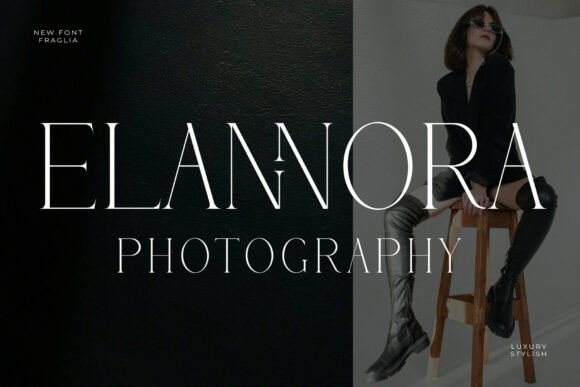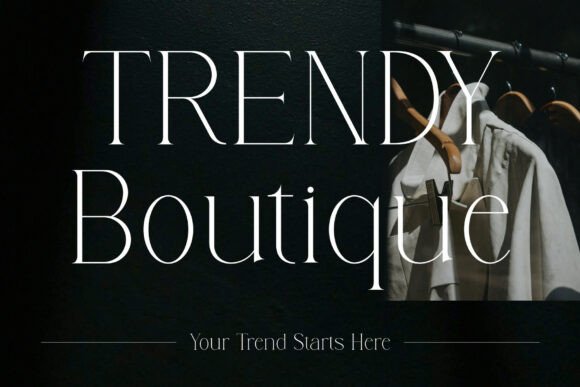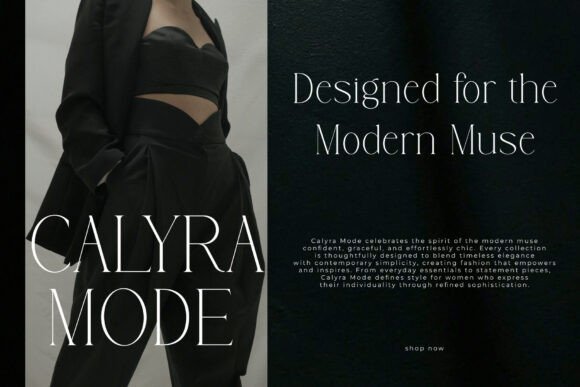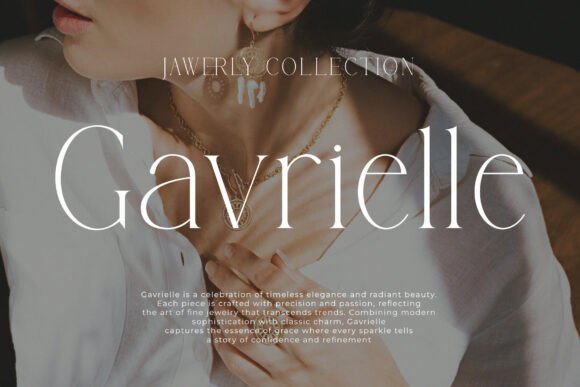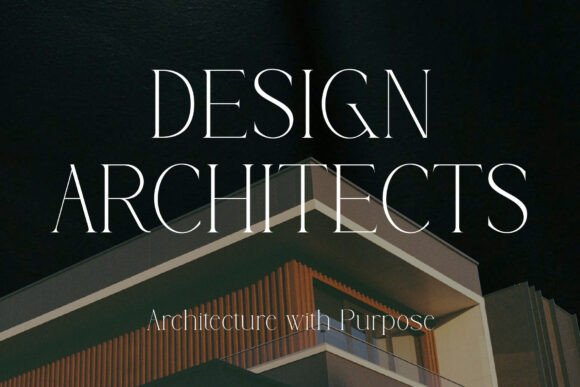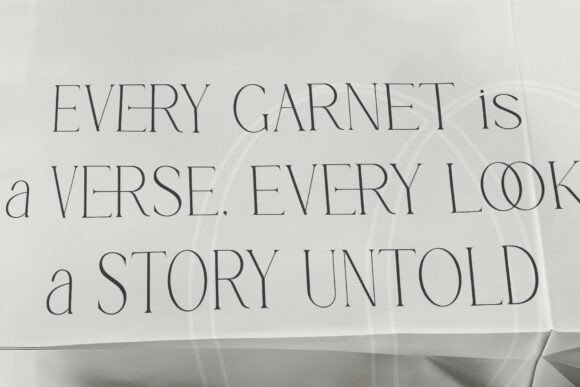
The Elegance of Framlir Font: Elevate Your Designs with Luxury and Sophistication
I’ll never forget the design project that made me fall in love with the Framlir Font. I was working on a luxury fashion brand’s visual identity, and my client specifically requested a font that exuded high-end elegance. After hours of searching, I stumbled upon Framlir, and it was love at first sight. The tall, high-contrast letterforms, the razor-thin hairlines, and the unique ligatures all came together to create a truly regal aesthetic. In this article, I’ll share my experience with Framlir, its features, and how to make the most of this stunning font.
A Personal Review of Framlir Font
- ✅ Elegant and sophisticated design that’s perfect for luxury brands
- ✅ High-contrast letterforms that add visual interest
- ✅ Unique ligatures that set it apart from other serif fonts
- ✅ Works beautifully for both digital and print applications
- ⚠️ May not be suitable for body text due to its elegant but slender design
- ⚠️ Some users may find the font’s stylistic alternates a bit tricky to navigate
Exploring Framlir’s Features: OpenType, Glyphs, and Stylistic Alternates
Framlir Font offers a range of features that make it truly special. Its OpenType features include:
- Ligatures: Framlir’s unique ligatures add a touch of elegance and sophistication to your designs
- Stylistic alternates: Framlir offers a range of stylistic alternates that allow you to customize the font to fit your brand’s personality
- Glyphs: Framlir’s glyph set includes a range of characters, from standard letters and numbers to more decorative elements like swashes and ornaments
The Backstory of Framlir Font
Framlir Font was designed with the goal of capturing the essence of luxury and sophistication. Its creator drew inspiration from classic editorial designs, combined with modern minimalism and a touch of elegance. The result is a font that’s both timeless and cutting-edge, perfect for high-end brands and designers who want to make a statement.
| Font Name | Framlir Font |
| Author | Gridline type |
Q: What is Framlir Font best suited for?
A: Framlir Font is ideal for luxury fashion branding, high-end cosmetic packaging, wedding photography watermarks, and high-impact social media headers.
Q: Can I use Framlir Font for body text?
A: While Framlir is elegant and sophisticated, its slender design may not be suitable for body text. It’s best used for headlines, titles, and other display text.
Q: Does Framlir Font come with OpenType features?
A: Yes, Framlir Font includes a range of OpenType features, including ligatures, stylistic alternates, and glyphs.
Q: Is Framlir Font easy to read?
A: Framlir Font is designed to be elegant and sophisticated, but its slender design may require some adjustment for optimal readability.